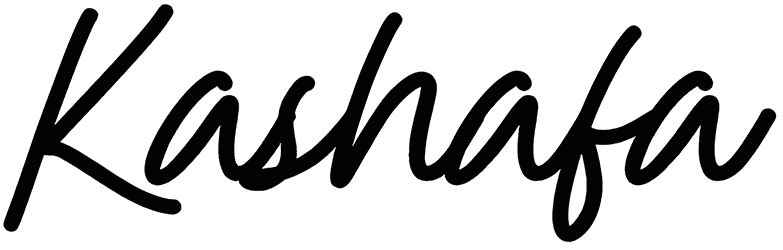
Kashafa Font
For a modern design that needs a unique letterform, this neon font would be a nice offer. The words will be casual and smooth, and they can capture a lot of people. Kashafa font with its cursive visual is an ace item for…
For a modern design that needs a unique letterform, this neon font would be a nice offer. The words will be casual and smooth, and they can capture a lot of people. Kashafa font with its cursive visual is an ace item for numerous projects, like a nightclub party flyer or a birthday Instagram post.